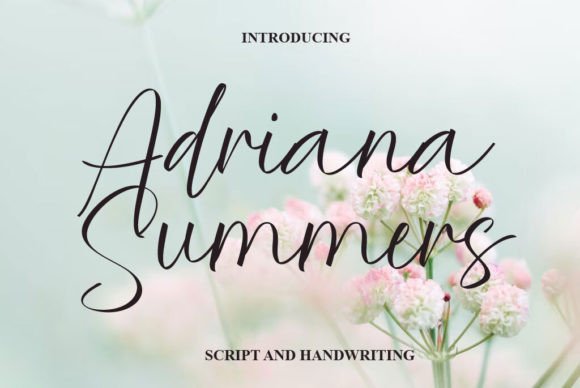
Discover the Elegance of Adriana Summers Font: Elevate Your Designs with Sophistication
In the realm of typography, few fonts manage to capture the essence of elegance and versatility as effectively as the Adriana Summers Font. This exquisite typeface is meticulously crafted to bring a touch of sophistication to a wide array of design projects, making it an indispensable asset for designers and creatives. Whether you’re working on logos, headlines, signage, or more formal materials such as invitations, labels, magazines, books, greeting/wedding cards, packaging, fashion, makeup, stationery, novels, or any advertising purpose, Adriana Summers Font is perfectly suited to enhance your creations.
The Birth of Adriana Summers Font
Adriana Summers Font was created with a clear vision: to provide a font that combines beauty, legibility, and uniqueness, catering to the needs of designers looking for that special typeface to elevate their work. This product was designed to help you make your digital images even more beautiful and unique, setting you apart in a crowded creative landscape.
The development of Adriana Summers Font involved a deep understanding of typographic principles, a keen eye for detail, and a passion for aesthetics. The result is a font that not only looks stunning but also offers remarkable versatility, making it suitable for a broad spectrum of applications.
Key Features of Adriana Summers Font
- Elegant Design: Adriana Summers Font boasts an elegant and sophisticated design, characterized by clean lines, perfect curves, and a harmonious balance between different elements.
- Versatility: Its versatility is one of its standout features, allowing it to be used in various contexts, from luxury branding to editorial design.
- Legibility: Despite its elegant nature, the font maintains high legibility, ensuring that your messages are conveyed clearly and effectively.
- Uniqueness: What sets Adriana Summers Font apart is its unique character, which can help your designs stand out and leave a lasting impression.
Applications of Adriana Summers Font
The applications of Adriana Summers Font are vast and varied. Here are some of the areas where this font truly shines:
- Logos and Branding: Create memorable and sophisticated logos that reflect the essence of your brand.
- Headlines and Signage: Draw attention with elegant and impactful headlines for signage and advertising.
- Invitations and Cards: Add a touch of luxury to invitations, greeting cards, and wedding cards.
- Magazines and Books: Enhance the readability and aesthetic appeal of your editorial projects.
- Packaging and Labels: Elevate your product packaging and labels with a sophisticated and eye-catching typeface.
- Fashion and Makeup: Perfect for branding in the fashion and beauty industries, where style and elegance are paramount.
- Stationery and Novels: Give your stationery and novels a professional and elegant look.
- Advertising: Use it in advertising materials to create compelling and memorable campaigns.
Why Choose Adriana Summers Font?
Choosing Adriana Summers Font for your design projects comes with numerous benefits:
- Time-Saving: With its versatile design, you can use it across various projects, saving time and resources.
- Professional Look: Instantly give your designs a professional and polished look.
- Stand Out: Differentiate your work from others with a unique and elegant typeface.
- Easy to Use: Designed to be user-friendly, making it easy to incorporate into your workflow.
Adriana Summers Font is more than just a typeface; it’s a design companion that can elevate your projects to new heights of elegance and sophistication. Whether you’re a professional designer or a DIY enthusiast, this font offers the tools you need to create stunning and memorable designs. With its versatility, elegance, and uniqueness, Adriana Summers Font is poised to become an essential part of your creative arsenal, helping you to make your digital images even more beautiful and unique.